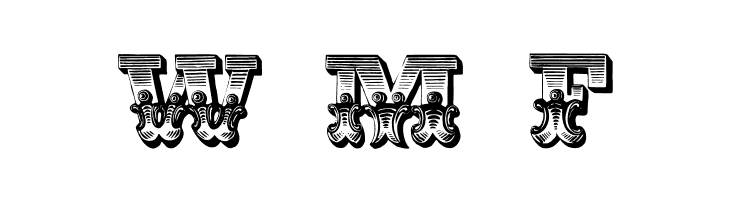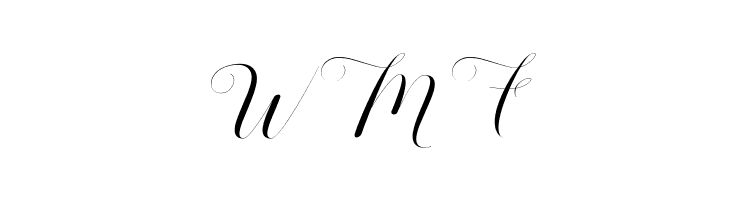
( Måns Grebäck - www.mansgreback.com )
An elegant, decorative script font with thin, flowing lines and intricate swirls.
( Pathero Studio - www.patherostudio.com )
An elegant, swash-filled decorative font with a calligraphic style.
( Roland Huse Design - Roland Huse - rolandhuse.com )
A flowing, cursive script font with elegant, interconnected letters.
( Siwox Studios - bit.ly/saffatinmyfonts )
An elegant script font with flowing, interconnected letters and delicate swashes.
( Typhoon Type - Suthi Srisopha - www.typhoontype.net )
An elegant script font with intricate swashes and high contrast, perfect for formal and artistic uses.
( Vladimir Nikolic - www.coroflot.com/vladimirnikolic )
Elegant serif font with high contrast and sharp serifs.
( aqr typeface - Azra Qaireen - bit.ly/2M2eb7C )
An elegant, high-contrast script font with flowing, cursive strokes.
( deFharo - Fernando Haro - defharo.com )
An elegant script font with flowing, cursive letterforms and high contrast.
( groenstudio - Ay Terry - creativemarket.com/groens )
An elegant, high-contrast script font with flowing, decorative characters.
( AgaSilva - agasilva.com )
An elegant script font with flowing, interconnected letters and ornate swashes.
( Aldus )
An ornate and regal font with intricate details and decorative flourishes.
( Character )
An ornate and decorative font with intricate swirls and flourishes.
( London's Letters - www.londonsletters.com/ )
An elegant script font with ornate flourishes and decorative elements.
( Renny Murray - www.rennysniche.com )
An ornate, decorative font with vintage-style framed characters.
( SnapeFonts - www.johnsnape.com/ )
An ornate, decorative font with intricate, artistic frames around each letter.
A sophisticated, high-contrast serif font with extended characters and elegant flourishes.
Elegant, light, condensed italic font with high contrast strokes.
An elegant, high-contrast extended italic font with a classic and sophisticated style.
A refined, high-contrast light italic font with elegant, elongated characters.
An ornate, decorative font with intricate detailing and a vintage flair.
A bold, decorative font with geometric and intricate designs.
A refined script font with elegant, flowing characters and high contrast strokes.
A sophisticated cursive script with a natural, flowing style.
An elegant and sophisticated cursive font with intricate swirls and flourishes.
An elegant, flowing script font with graceful, cursive letterforms.
An ornate, decorative font with intricate carvings and floral embellishments.
An elegant and ornate script font with flowing, intricate letterforms.
An elegant, flowing cursive script with artistic strokes.
An elegant script font with flowing, ornate swashes and flourishes.
An elegant script font with ornate floral embellishments and flowing lowercase letters.
An elegant script font with flowing, interconnected letters and high contrast strokes.
A bold, extravagant font with geometric shapes and intricate patterns.